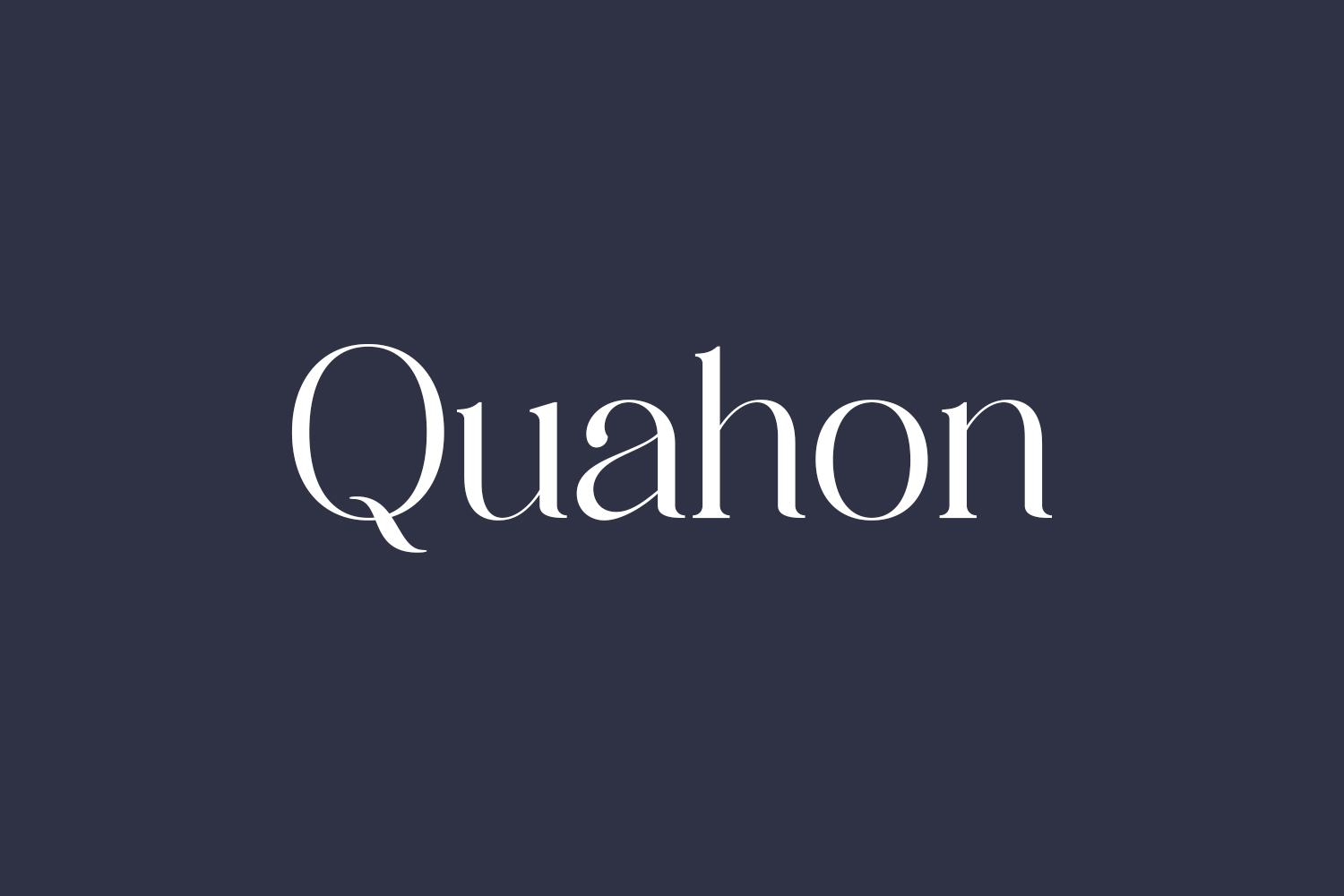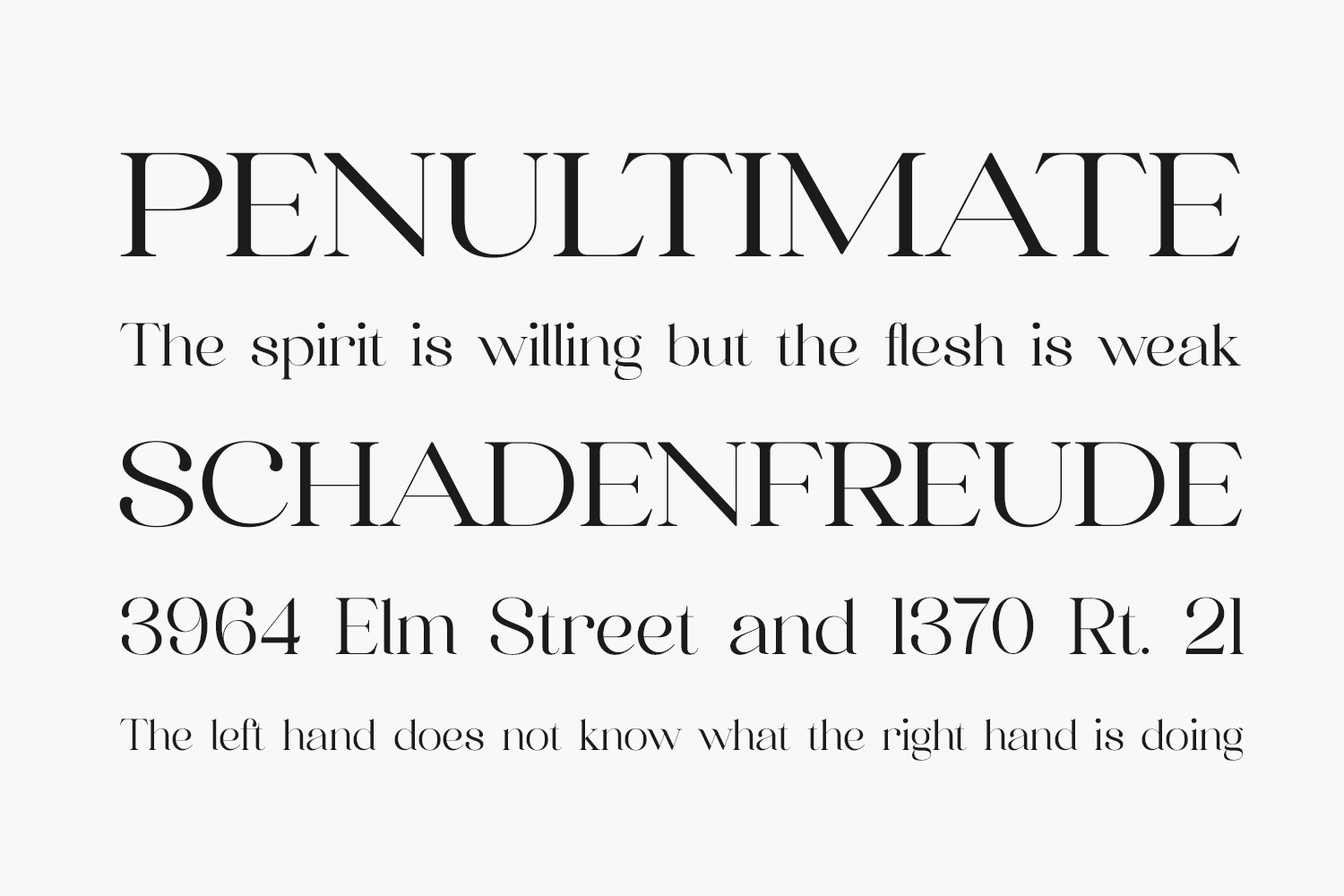
Introducing Quahon Free Font, a contemporary yet timeless serif font featuring a distinct style and a dignified aesthetic. This font is the epitome of elegance and luxury, making it ideal for sophisticated logos, book or movie titles, fashion brands, magazines, apparel, lettering, quotes, and a multitude of design applications. Quahon Free Font is free for personal use only. Please purchase the full version for commercial use.